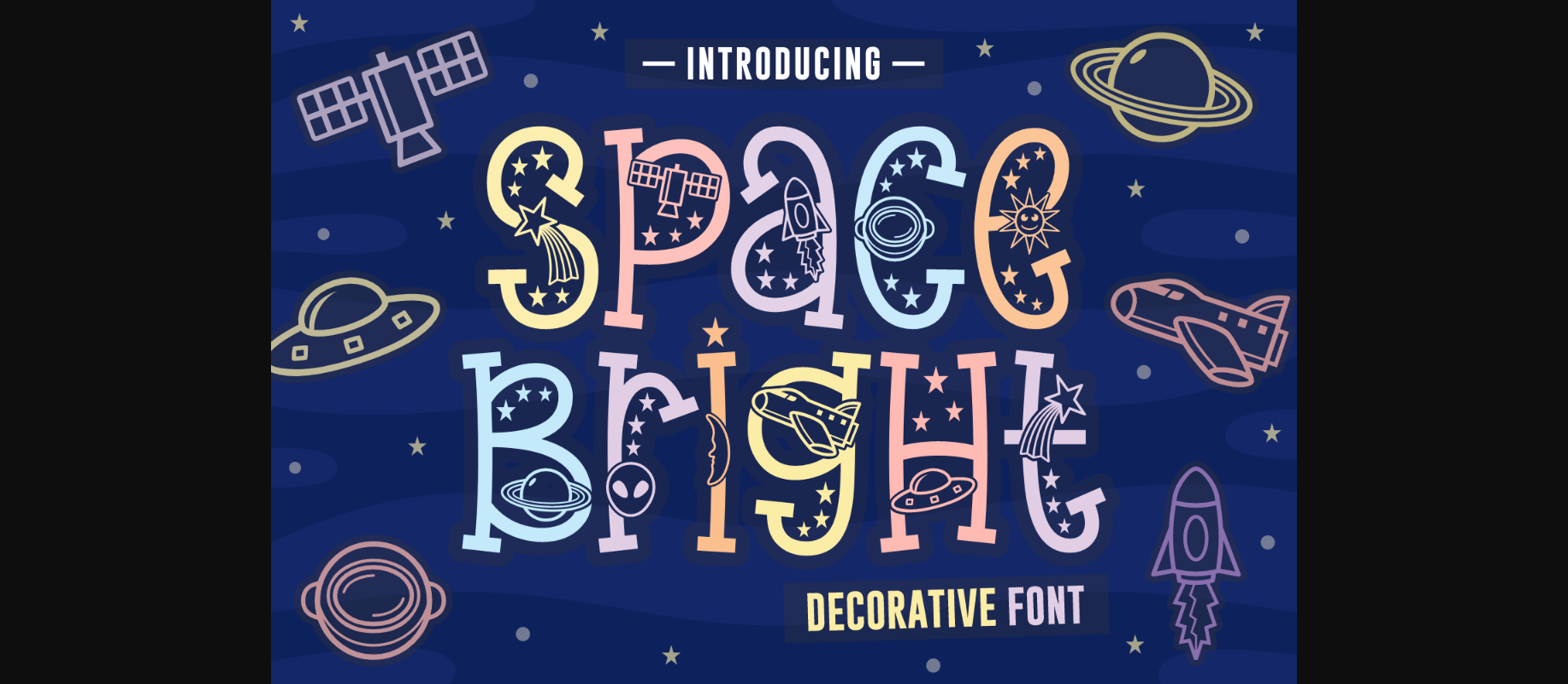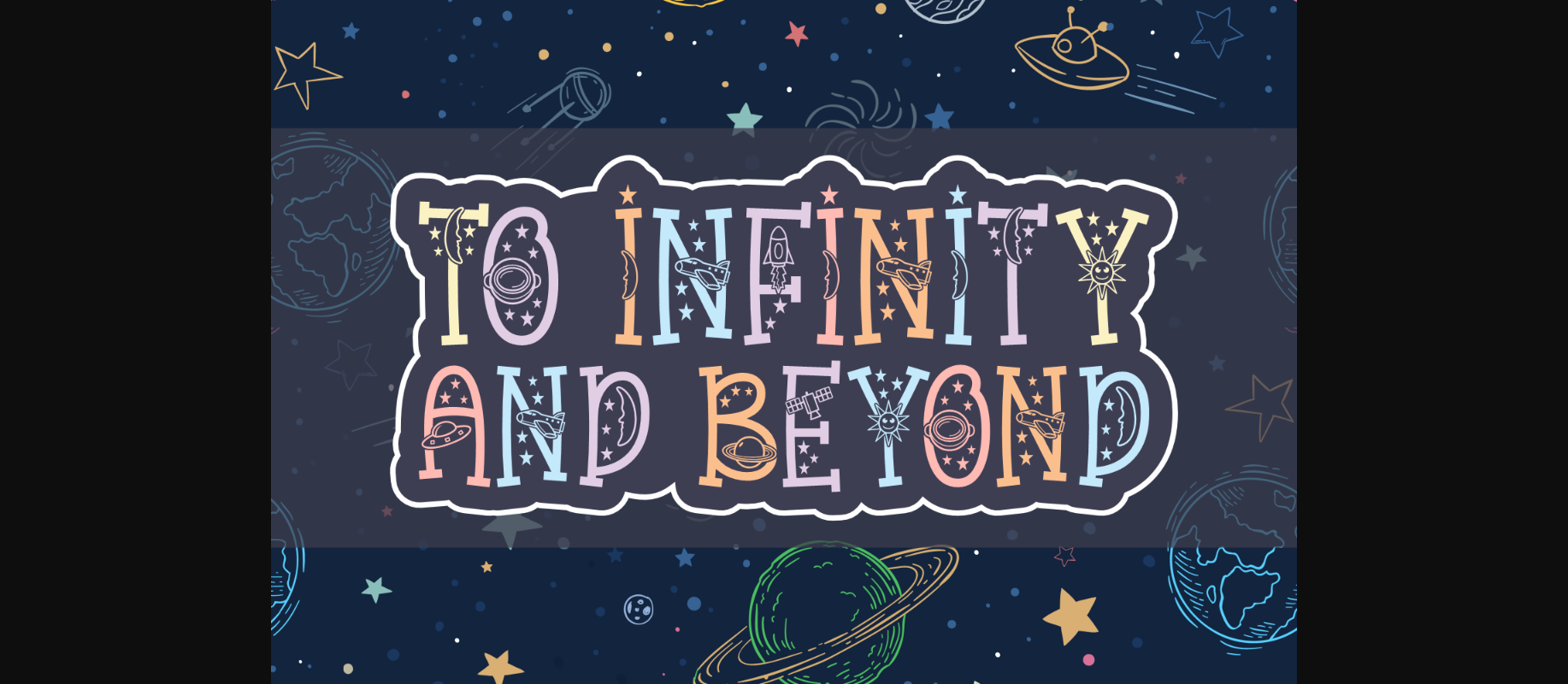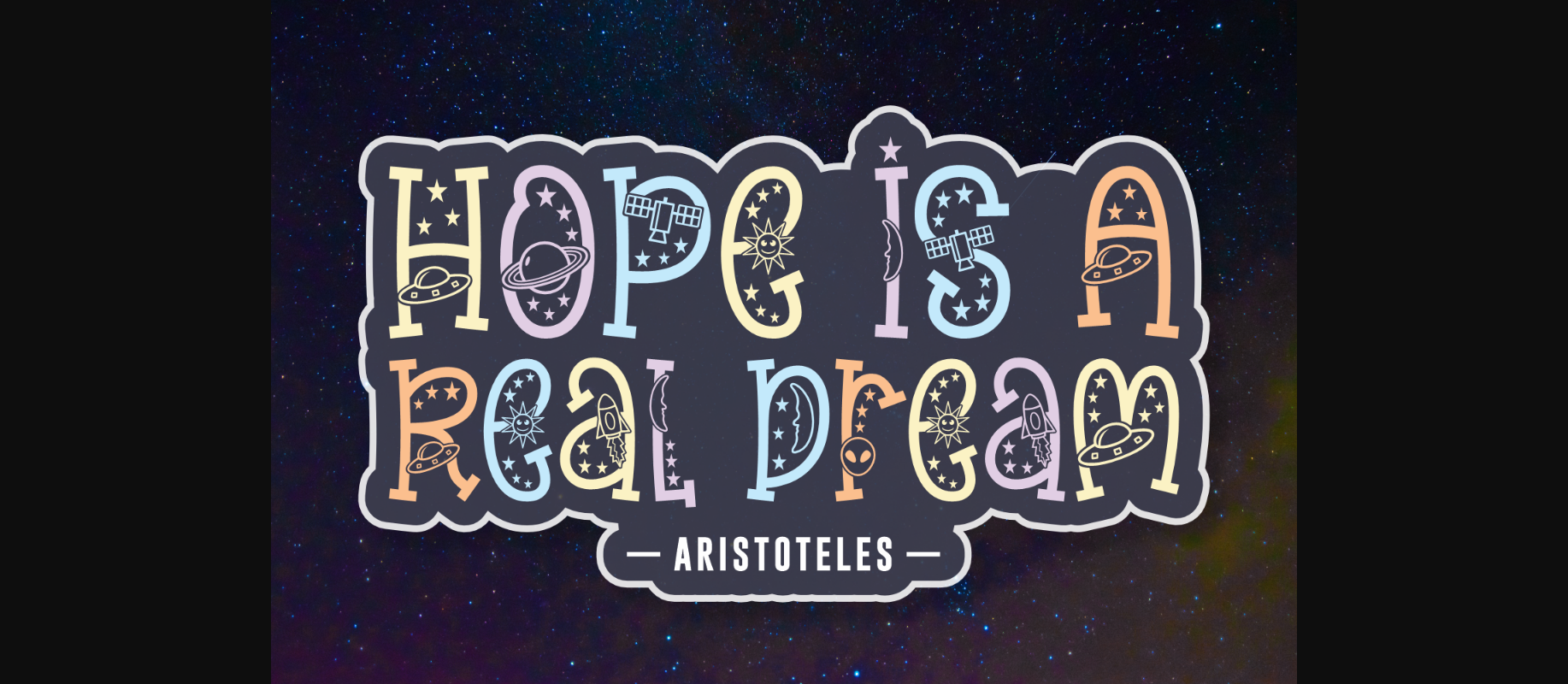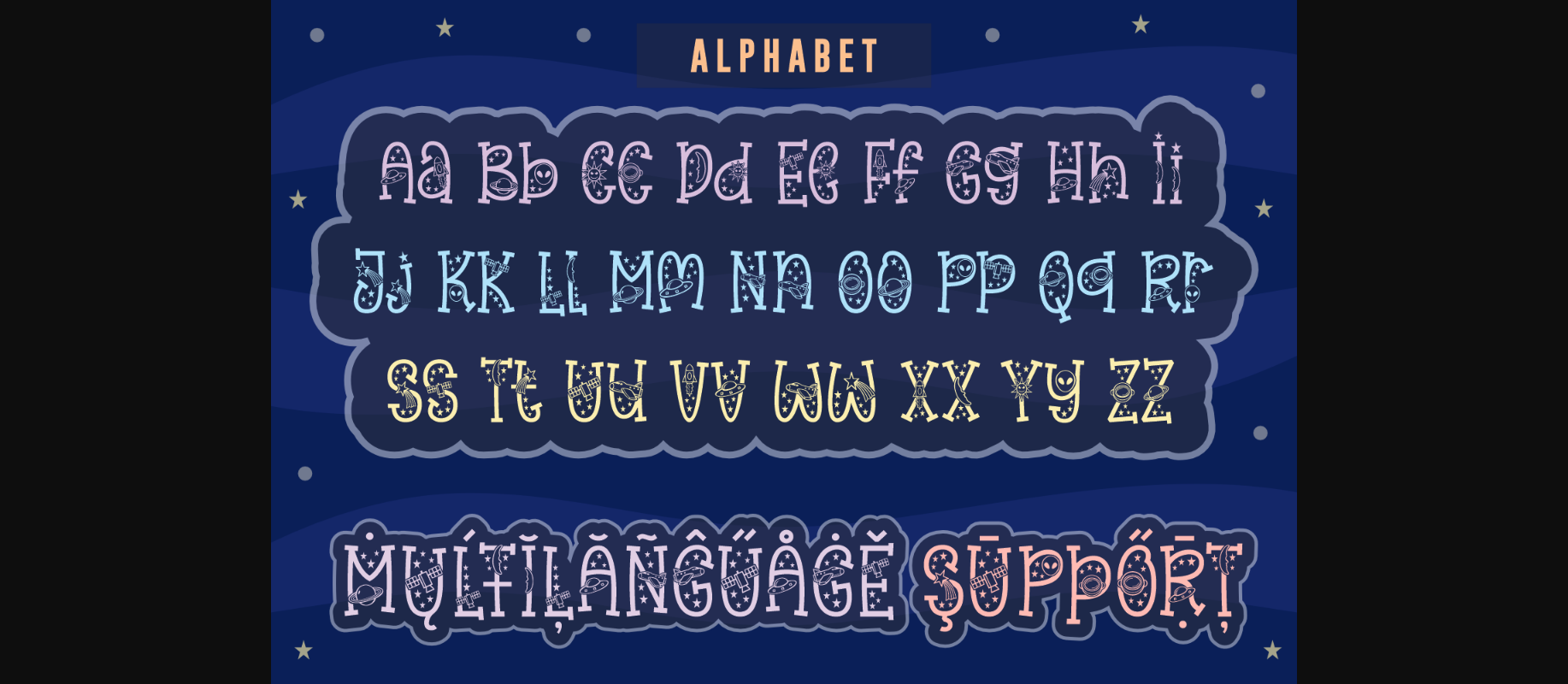
About Space Bright Font
Space Bright is a decorative font that every space-obsessed will appreciate. With a space-themed, this creative font features stars, moon, sun, space ships, stars, and more decorative items on each character. You will also receive extra PUA encoded characters, also space-related. Use them to create thematical posters, movie presentations, books, kids’ room designs, birthday cards, wall art, t-shirts, etc.